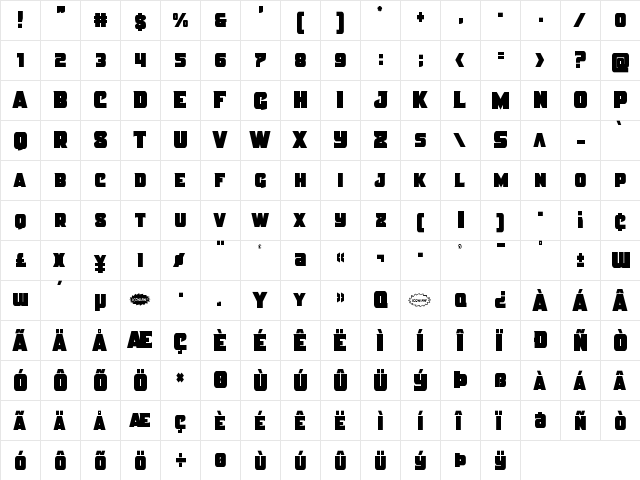
Justice Condensed Straight Condensed
Design Context for Justice Condensed Straight Typeface
Justice Condensed Straight offers clean, dependable letterforms without strong stylistic allegiance, making it a practical choice for designers who need flexibility. Its narrow stance lets it pack a punch even in space-constrained designs.